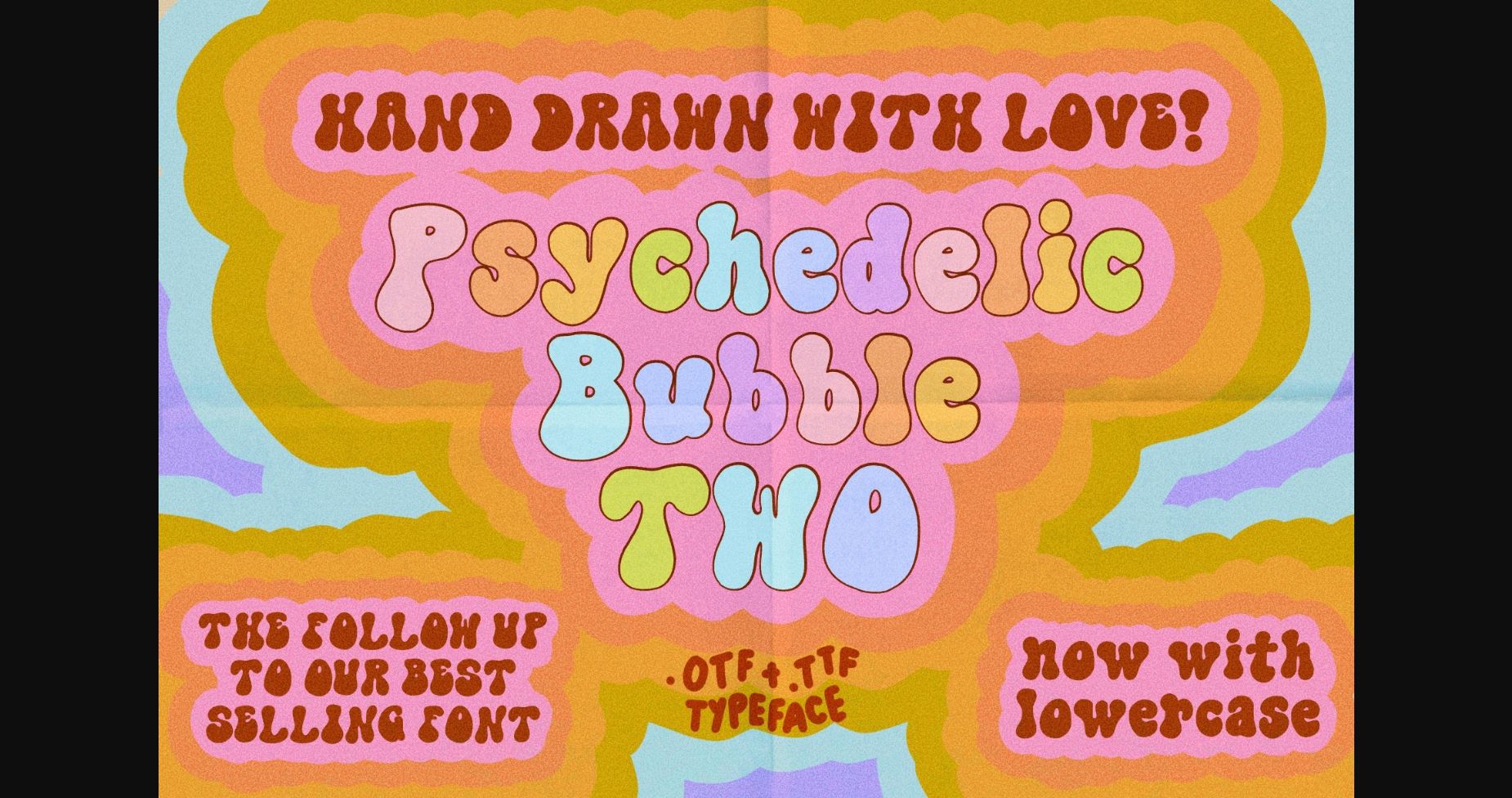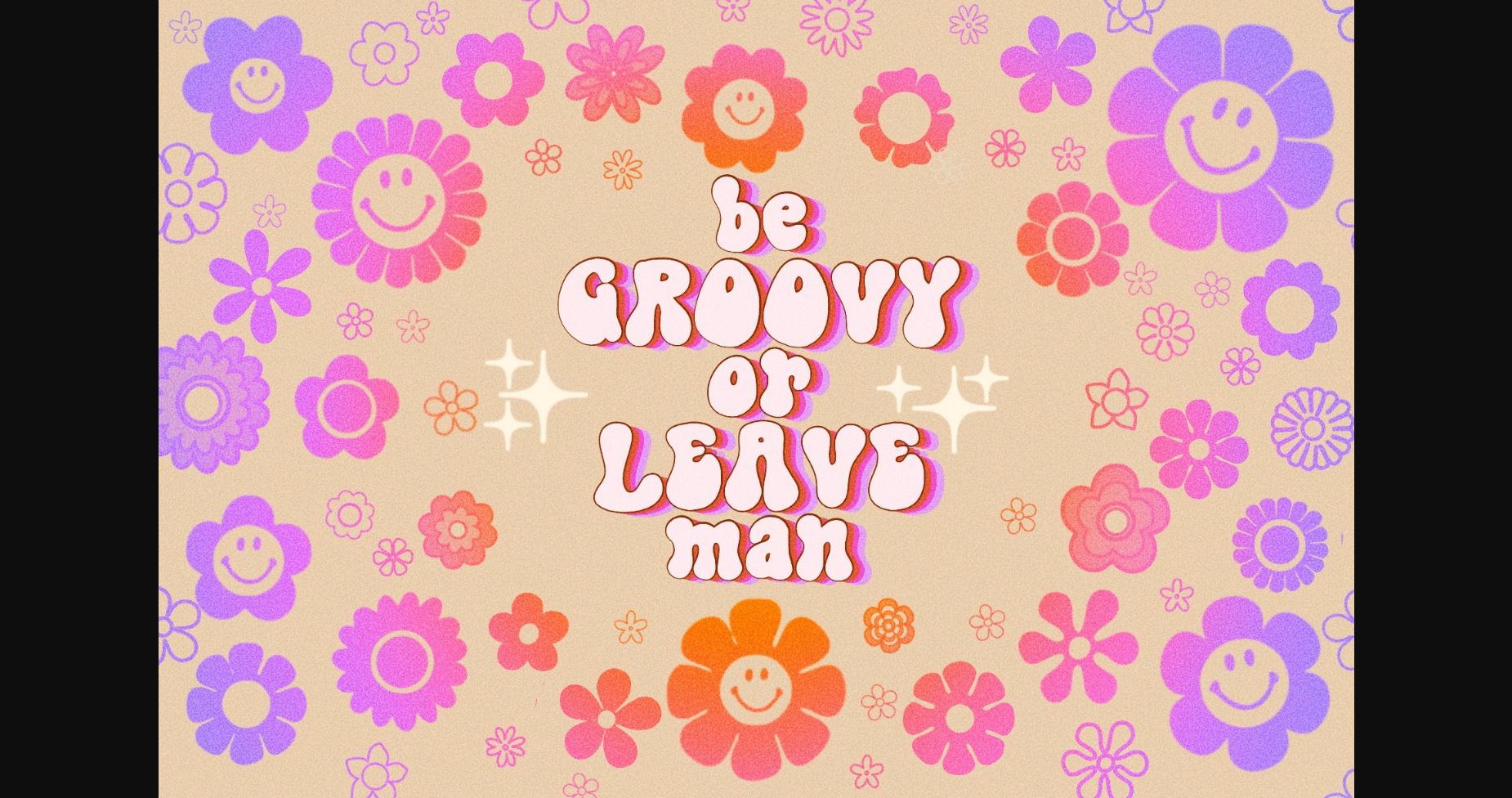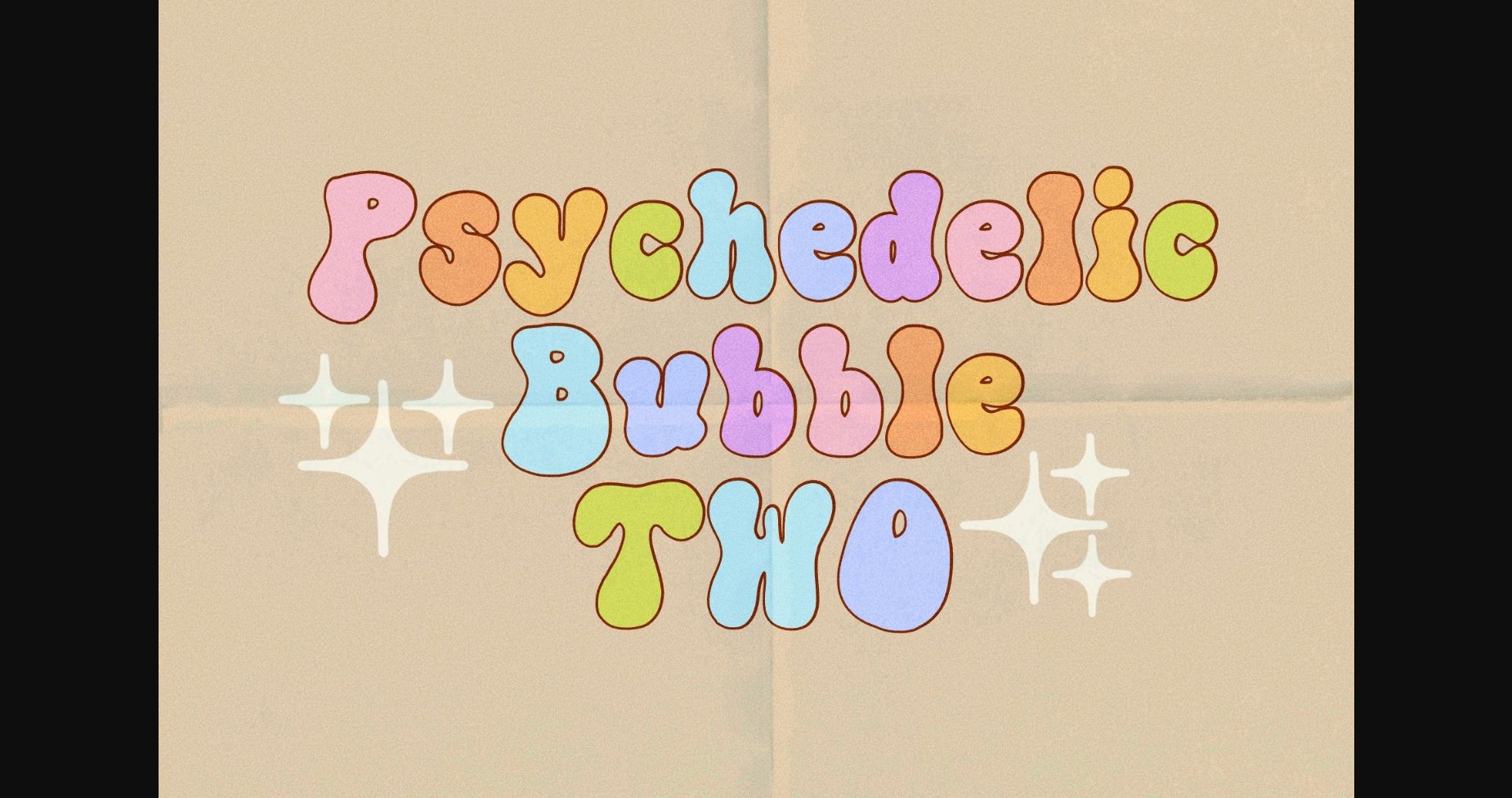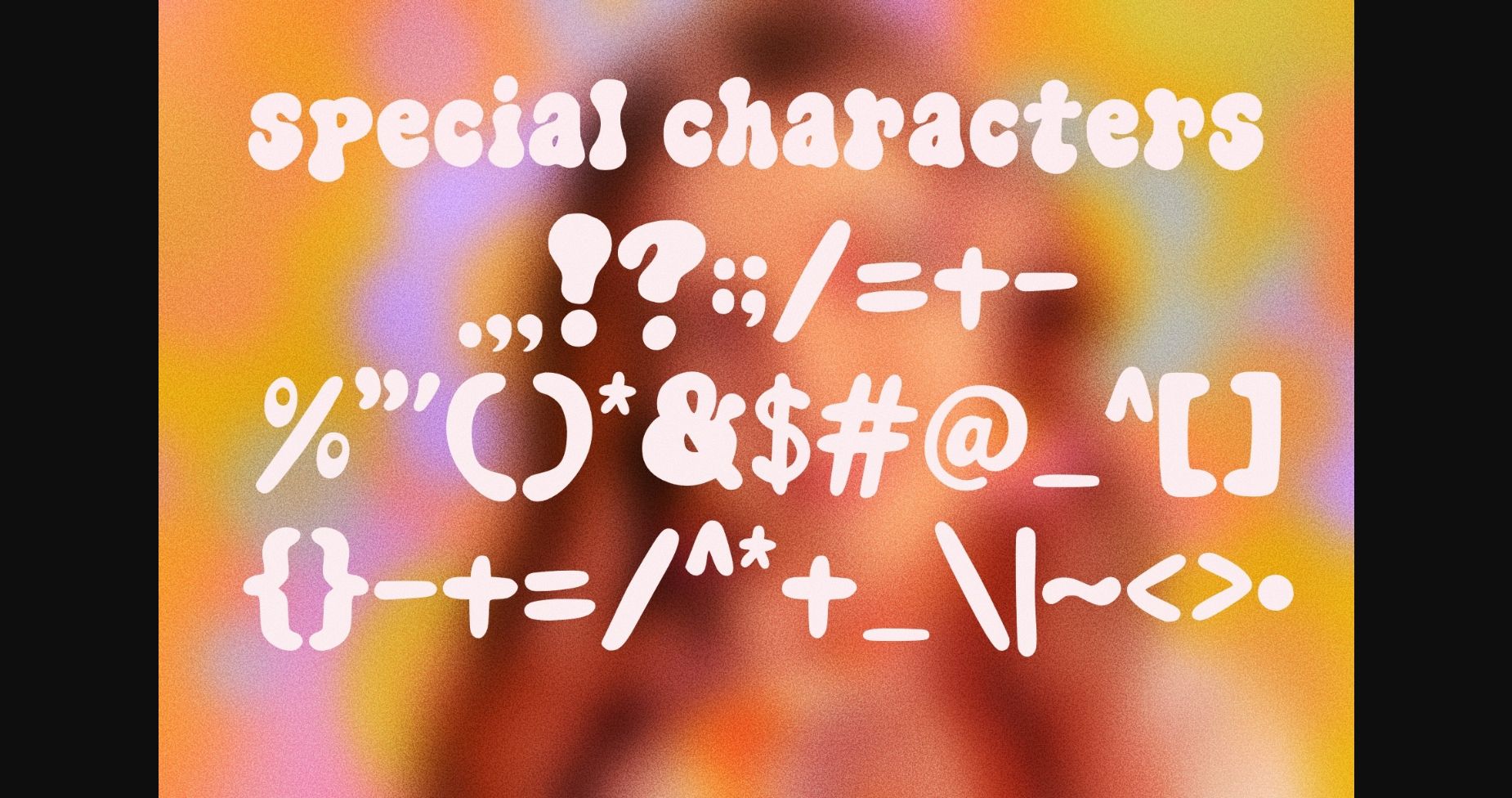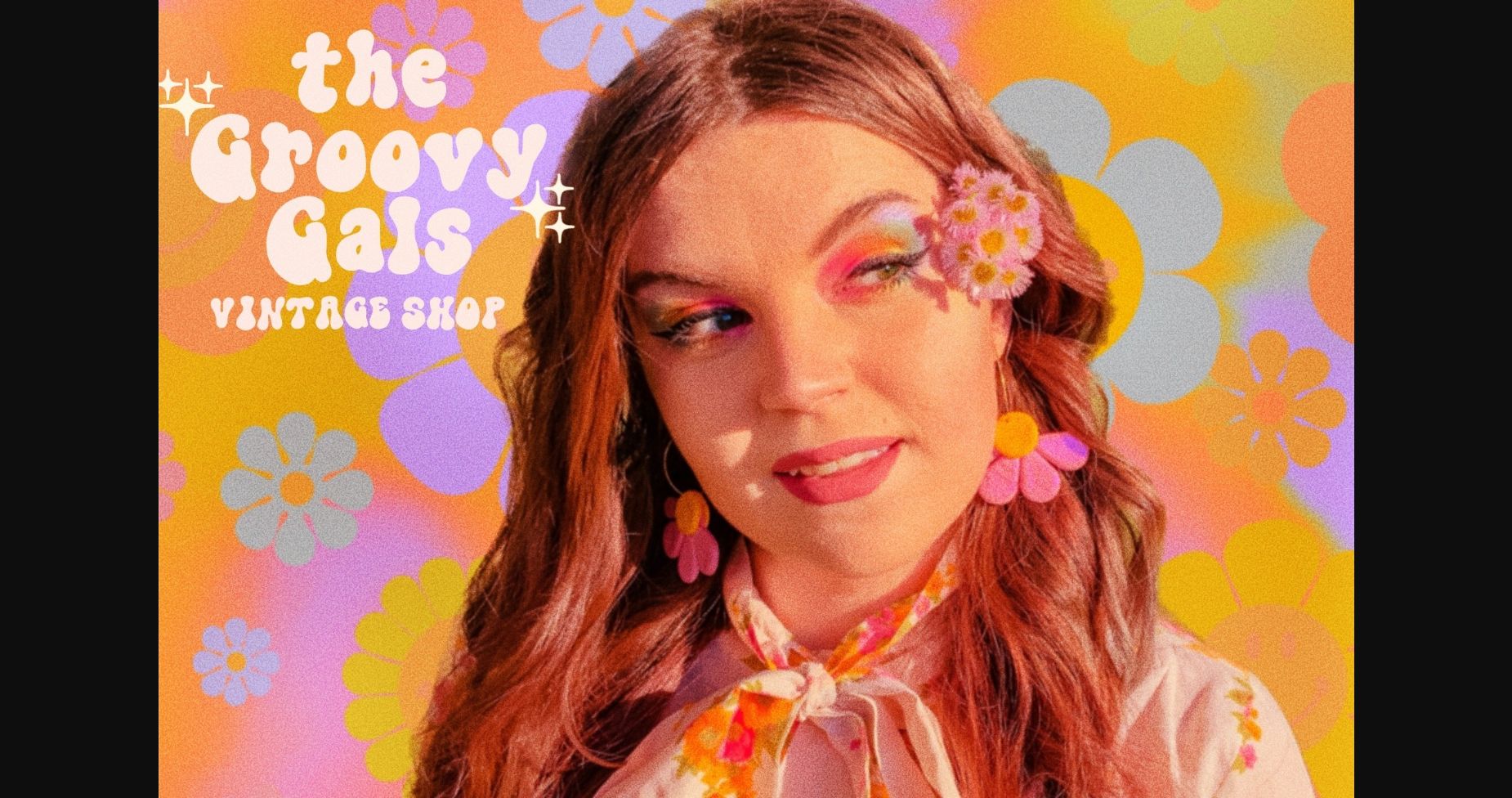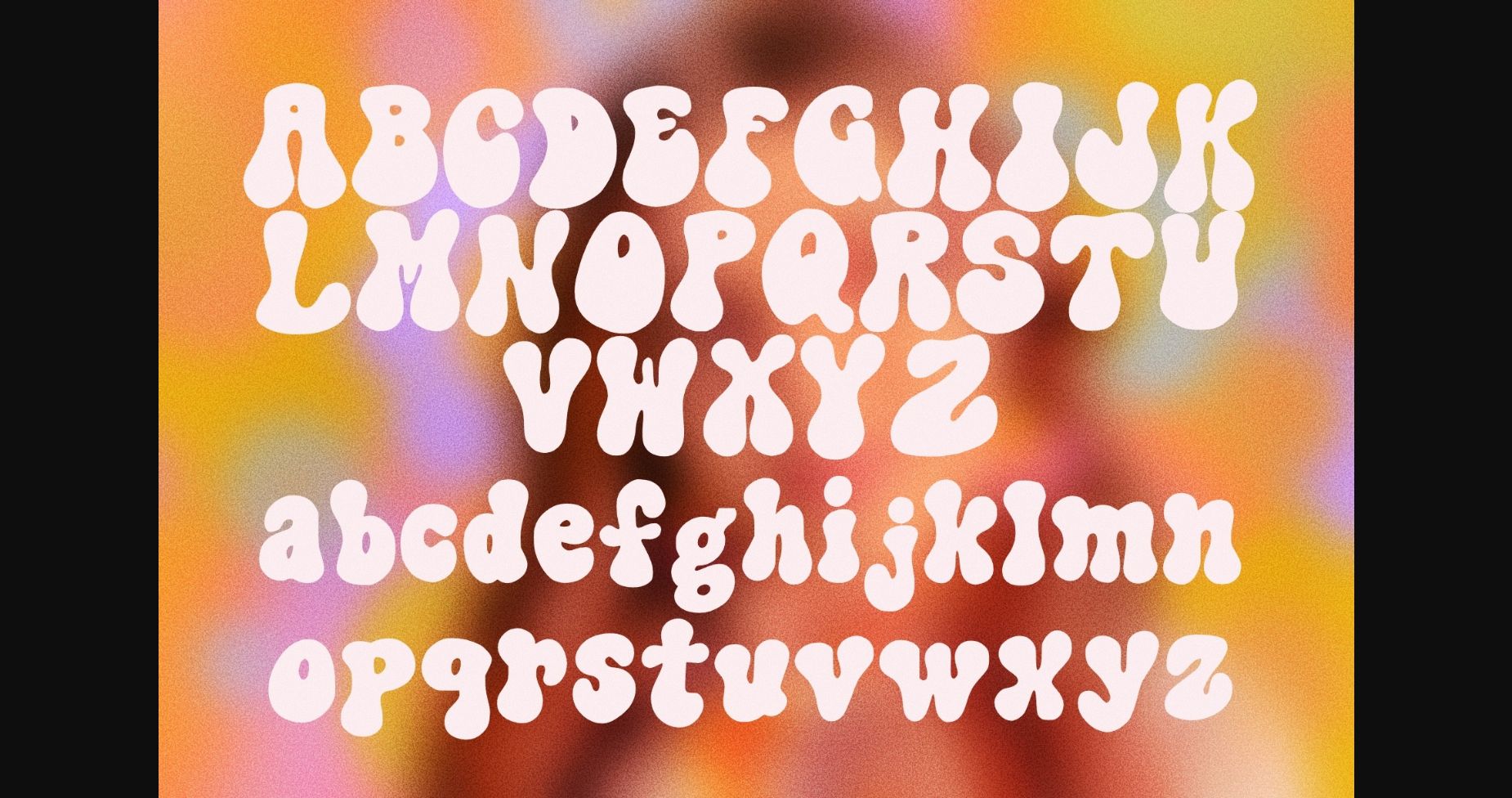
Psychedelic Bubble Two Font
About Psychedelic Bubble Two Font
Psychedelic Bubble Two is a retro, stylish, and hippie sans-serif font that brings a touch of nostalgia to any design project. With bold lines and playful curves, this font captures the essence of the 60s and 70s counterculture movement. Perfect for creating vintage logos, posters, and branding materials that require a fun and carefree look. Ideal for anyone who wants to add a touch of retro flair to their designs.